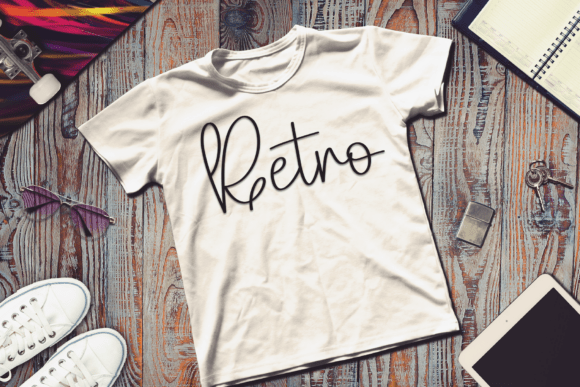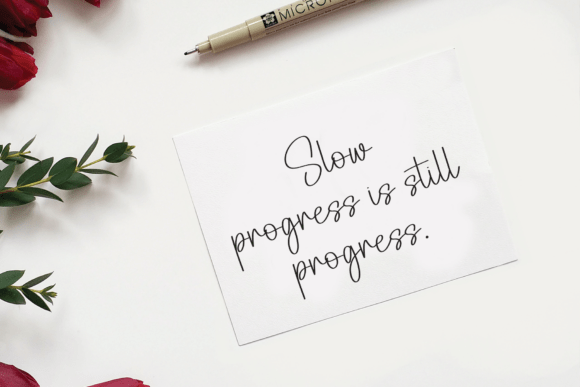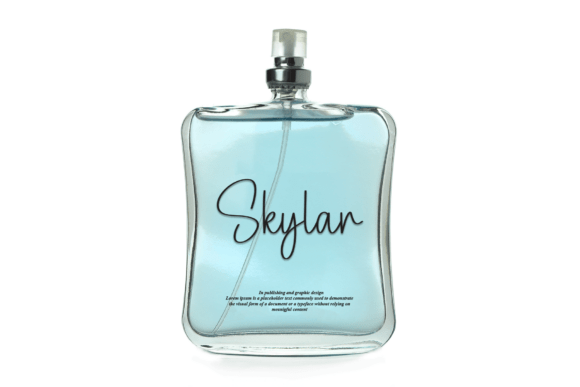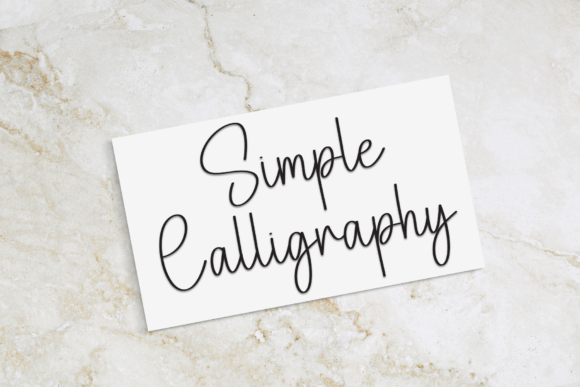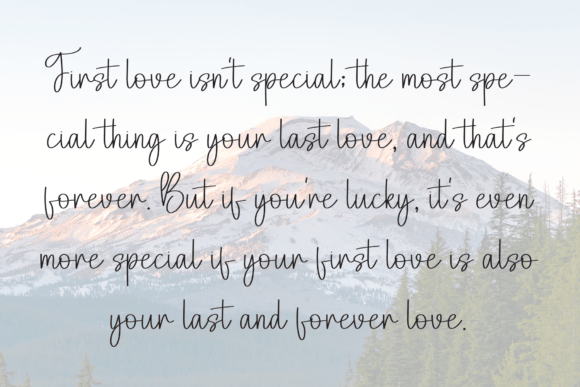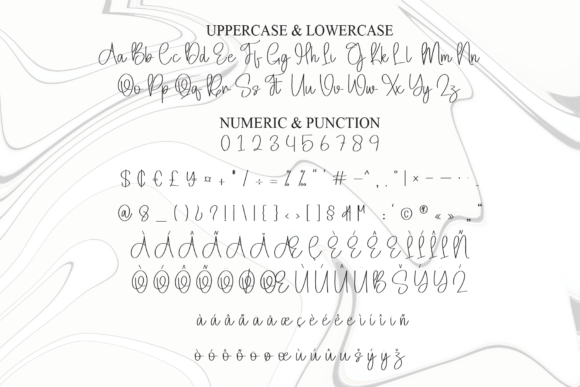
Introducing Blackline Font: Elevate Your Designs with Elegance and Sophistication
Are you tired of using the same old fonts for your designs? Do you want to add a touch of elegance and sophistication to your projects? Look no further than Blackline Font, the latest and most stylish font to hit the market. Our font is designed to provide you with a unique and extraordinary experience, perfect for a wide range of applications, from wall displays and wedding invitations to social media posts and product packaging.
Unleash Your Creativity with Blackline Font
Blackline Font is a special creative product that is designed to help you take your designs to the next level. With its modern and trendy style, this font is perfect for designers, crafters, and anyone looking to add a touch of sophistication to their projects. Whether you’re working on a wedding invitation, a social media post, or a product label, Blackline Font is the perfect choice.
Endless Design Possibilities with Blackline Font
Blackline Font is perfect for a wide range of design applications, including:
- Wall displays: Add a touch of elegance to your wall displays with Blackline Font.
- Wedding invitations: Make your wedding invitations stand out with our beautiful and sophisticated font.
- Social media posts: Elevate your social media posts with Blackline Font and make them stand out from the crowd.
- Logos: Create stunning logos with Blackline Font that will help your brand stand out.
- Advertisements: Use Blackline Font to create eye-catching advertisements that grab attention.
- Product packaging: Add a touch of sophistication to your product packaging with Blackline Font.
- Product designs: Use Blackline Font to create stunning product designs that showcase your brand’s personality.
- Labels: Create beautiful labels with Blackline Font that will make your products stand out.
- Photography: Use Blackline Font to add a touch of elegance to your photography.
- Watermarks: Protect your images with beautiful watermarks created with Blackline Font.
- Invitations: Create stunning invitations with Blackline Font that will make your events unforgettable.
- Stationery: Elevate your stationery with Blackline Font and make it stand out.
Why Choose Blackline Font?
There are many reasons why Blackline Font is the perfect choice for designers and crafters. Here are just a few:
- Unique and stylish: Blackline Font is a unique and stylish font that will add a touch of elegance to your designs.
- High-quality: Our font is of the highest quality, ensuring that it will look great in any design application.
- Versatile: Our font is perfect for a wide range of design applications, from wall displays to social media posts.
If you’re looking for a unique and stylish font that will elevate your designs, look no further than Blackline Font. With its modern and trendy style, this font is perfect for designers, crafters, and anyone looking to add a touch of sophistication to their projects. With its comprehensive file package, ease of use, and long-term support, Blackline Font is the perfect choice for anyone looking to take their designs to the next level.